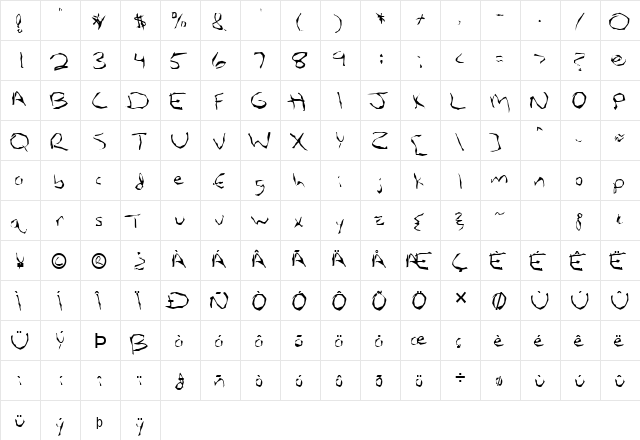
FZ WACKY 5 Normal
Design Context for FZ WACKY 5 Typeface
FZ WACKY 5 is a composed and adaptable typeface that performs quietly and consistently across a wide range of design contexts.